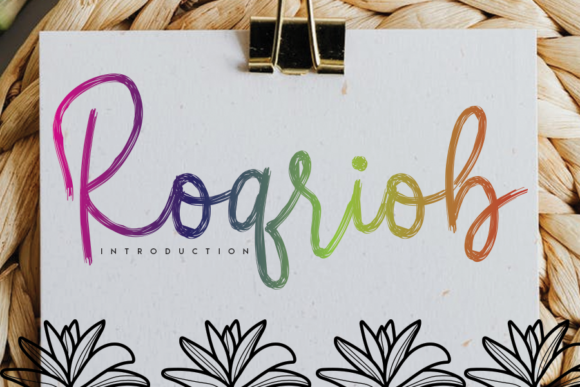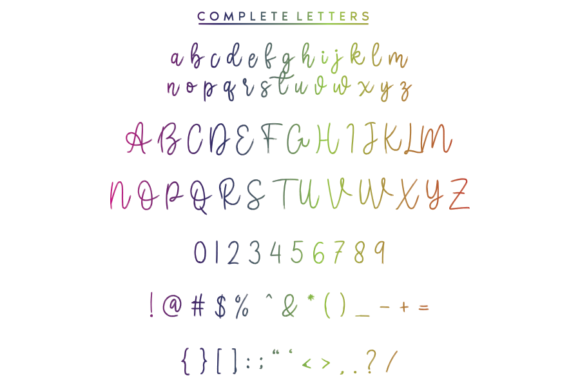
About Roqriob Font
Roqriob is a flowing and colorful handwritten font, created with the help of a distinct brush pen. Fall in love with its incredibly versatile style and use it to create gorgeous wedding invitations, beautiful stationary art, eye-catching social media posts, and much more!